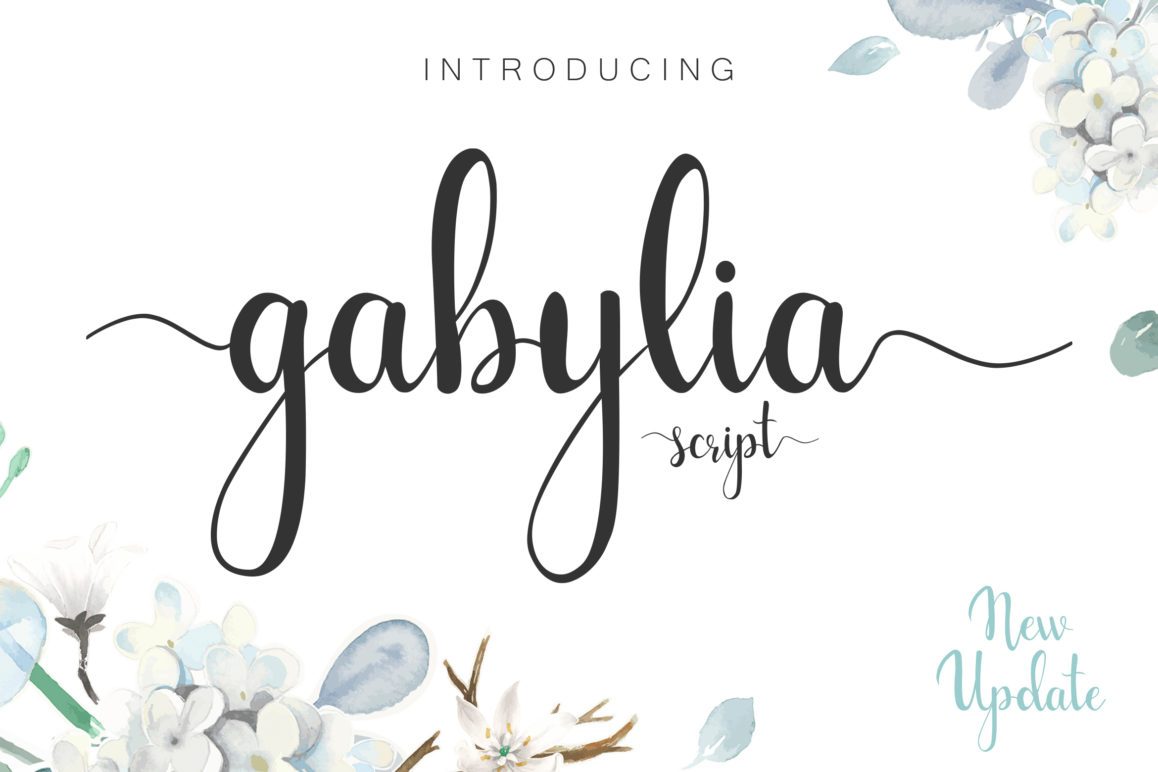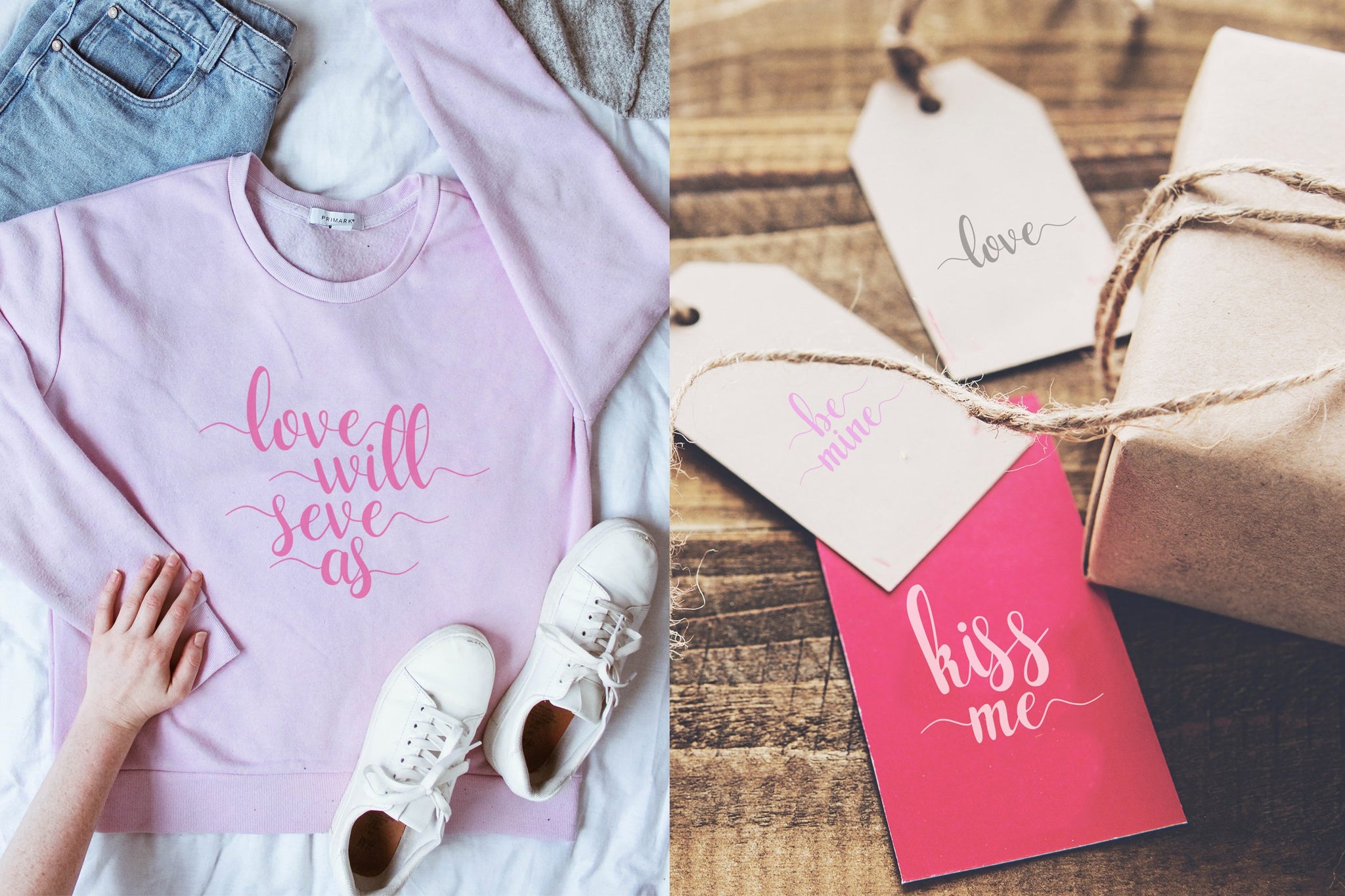
Gabylia - Free Script Font
We're glad to feature this gorgeous Gabylia - Free Script Font. Download this free font from the source of Crella. Easily amaze your audience with this fancy font and make your graphic designs pop up from the crowd.